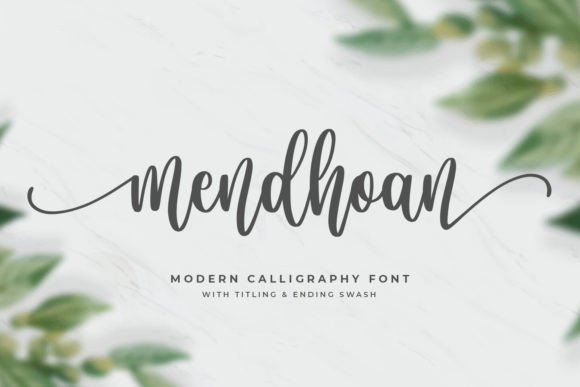
Unleash the Timeless Charm of Mendhoan Font: A Journey Into Refined Elegance
In the realm of typography, Mendhoan Font stands as an exquisite creation, a testament to the enduring allure of handwritten grace and timeless elegance. This script font, meticulously crafted by the visionary Abodaniel, embodies the essence of beauty and refinement, promising to transform your designs into captivating works of art.
Mendhoan's intricate swashes and delicate curves evoke a sense of heartfelt emotion, adding a touch of personal charm to your creative projects. Whether you seek to craft captivating school posters that ignite the imagination or design heartfelt invitations that leave a lasting impression, Mendhoan Font is your trusted companion, ready to elevate your words into a symphony of visual delight.
Visualize your school posters adorned with Mendhoan's enchanting characters, each letter dancing across the page like a melody, beckoning young minds to embark on a journey of learning and discovery. The font's graceful lines and elegant flourishes lend an air of sophistication, ensuring that your messages resonate with students, parents, and educators alike.
Step into the world of Mendhoan Font and embrace the magic of timeless elegance. Let your creativity flourish as you witness the transformation of ordinary words into captivating expressions of art. Mendhoan's delicate script will caress your designs, adding a touch of enchantment to every project you undertake.